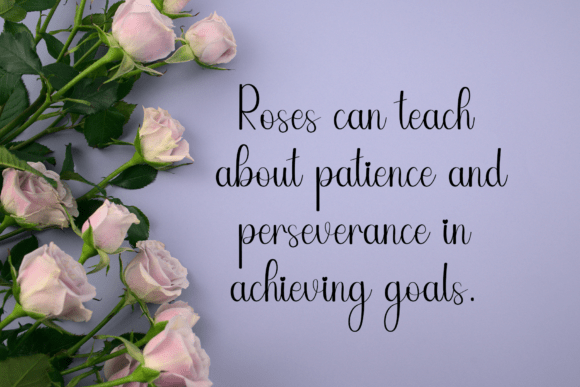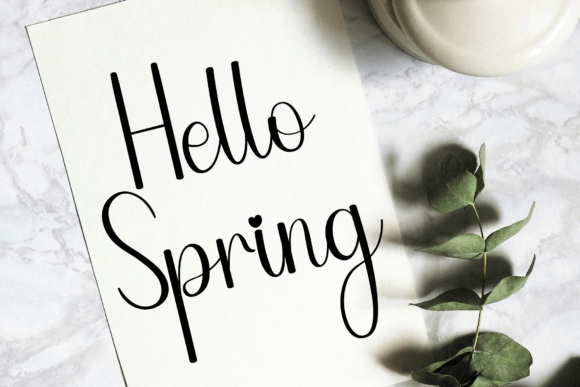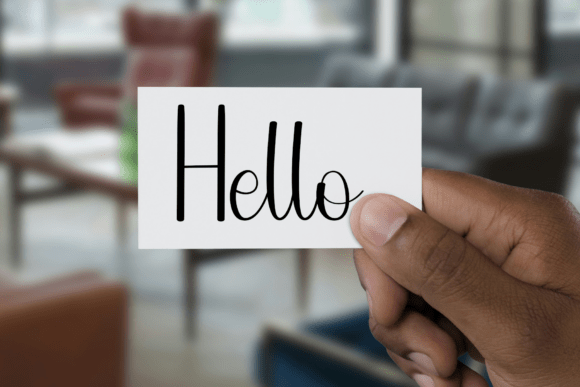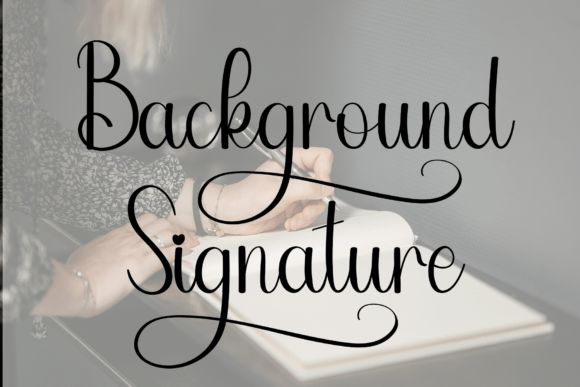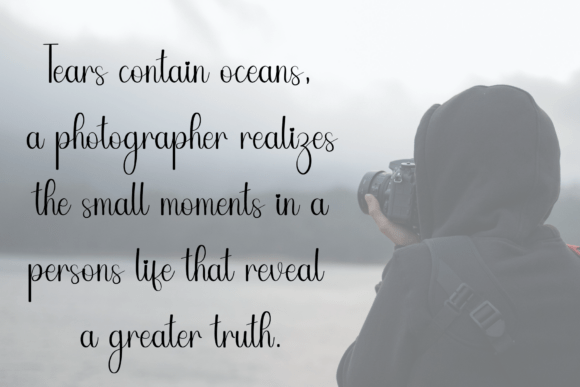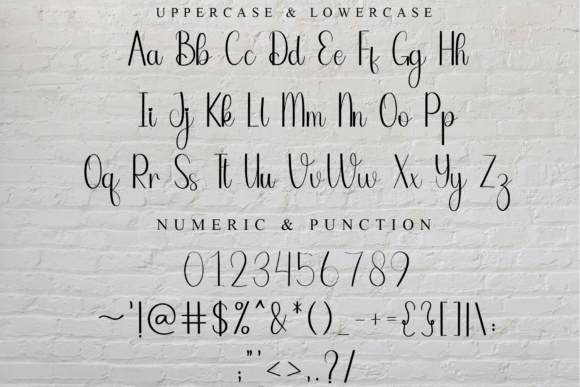
Introducing Book Signature Font: Elevate Your Designs with Elegance
In the world of typography, a well-crafted font can make all the difference in elevating your design from ordinary to extraordinary. For those seeking a touch of sophistication and elegance, Book Signature Font is an exceptional choice. This beautiful script font is designed to bring a level of refinement and poise to your projects, making it perfect for a variety of applications.
What is Book Signature Font?
Book Signature Font is an elegant script font characterized by its refined strokes and sophisticated loops, closely mimicking natural handwriting. Its design is centered around providing a stylish and professional signature look that can instantly enhance the aesthetic of your work. Whether you’re creating wedding stationery, crafting personal branding materials, designing book covers, or working on any project that demands a touch of class, Book Signature Font is an ideal choice.
Key Features of Book Signature Font
- Elegant Script Design: The font boasts a flowing script style with elegant strokes that can add a sophisticated touch to any design.
- Refined Strokes and Loops: Its refined strokes and sophisticated loops are designed to mimic natural handwriting, providing a personal and unique feel.
- Versatility: Book Signature Font is versatile and can be used across various platforms and design materials, from digital to print.
- Easy to Read: Despite its elegant and cursive nature, the font maintains a high level of readability, making it suitable for both headings and body text.
Use Cases for Book Signature Font
The versatility of Book Signature Font makes it suitable for a wide range of applications. Here are some of the most popular use cases:
- Wedding Stationery: Add a touch of romance and elegance to your wedding invitations, save-the-date cards, and other stationery with this beautiful font.
- Personal Branding: For professionals and entrepreneurs looking to create a personal brand, Book Signature Font can help convey a sense of sophistication and professionalism.
- Book Covers: Authors and publishers can use this font for book covers to give their titles a classic and timeless look.
- Graphic Design Projects: Whether you’re working on a logo, brochure, or any other graphic design project, Book Signature Font can be a valuable addition to your typography choices.
Tips for Using Book Signature Font Effectively
To get the most out of Book Signature Font, consider the following tips:
- Pair with Complementary Fonts: For maximum impact, pair Book Signature Font with simpler, sans-serif fonts to create a balanced and visually appealing design.
- Adjust Letter Spacing: Fine-tune the letter spacing to ensure that your text is easy to read and aesthetically pleasing.
- Use it Sparingly: While Book Signature Font is elegant, using it sparingly can make it more impactful. Consider using it for headings or quotes.
Book Signature Font is a stunning script font that can elevate your designs with its elegant and sophisticated look. Its versatility, readability, and beautiful strokes make it an excellent choice for designers and crafters looking to add a touch of class to their projects. Whether you’re creating wedding stationery, personal branding materials, or book covers, Book Signature Font is sure to make your work stand out.